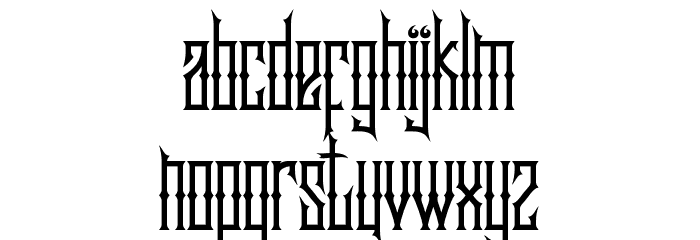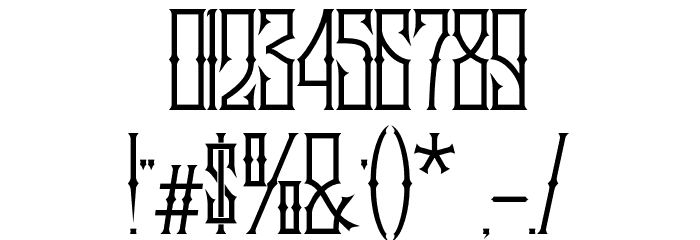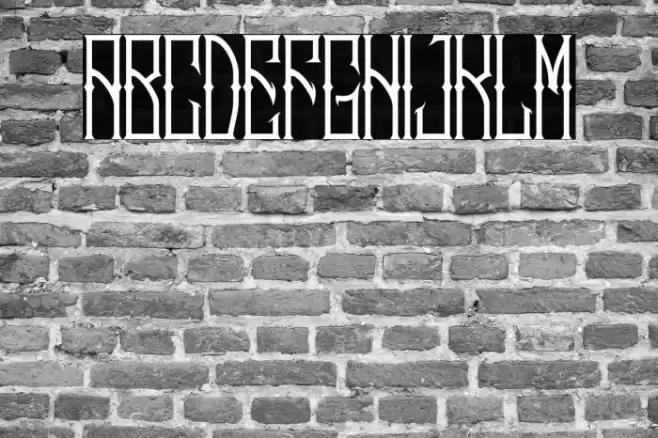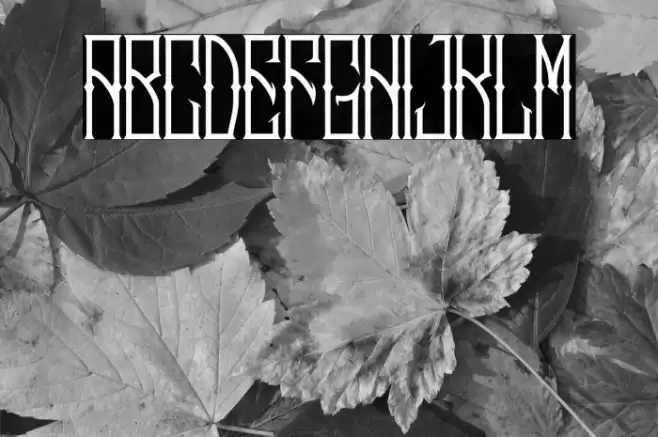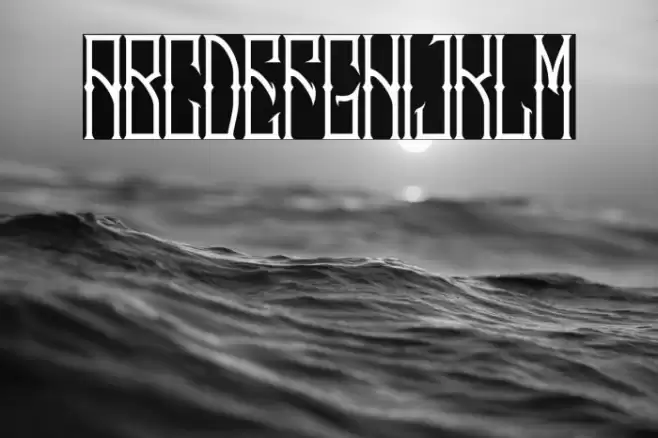
Sadis Font
This font features a highly decorative and intricate design, reminiscent of Gothic or medieval script styles. The characters are elongated with sharp, angular edges and pointed serifs, creating a dramatic and bold appearance. The uppercase and lowercase letters maintain a consistent style, with unique embellishments such as spikes and flourishes that add to the ornate aesthetic. The numbers and special characters follow the same elaborate design, ensuring uniformity across all glyphs. This font is ideal for projects that require a historical or fantasy theme, offering a striking visual impact.
An ornate, Gothic-style font with sharp, angular edges and decorative flourishes.
- Font: Sadis
- Proposed Projects: Ideal for fantasy-themed designs, historical event posters, book covers, or any project requiring a dramatic and medieval aesthetic.
- Category: Blackletter
- Character Spacing: Tight